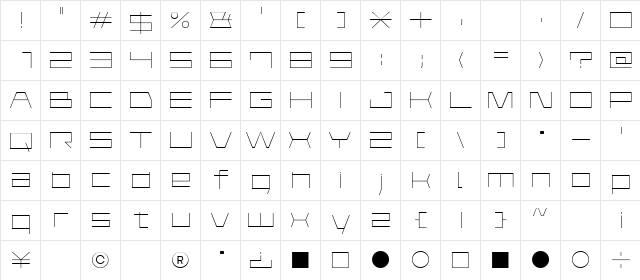
AstraAfsb07LightO Regular Font Preview
AstraAfsb07LightO Regular
Design Context for AstraAfsb07LightO Typeface
AstraAfsb07LightO offers clean, dependable letterforms without strong stylistic allegiance, making it a practical choice for designers who need flexibility. Its slender proportions lend an understated elegance to any composition.